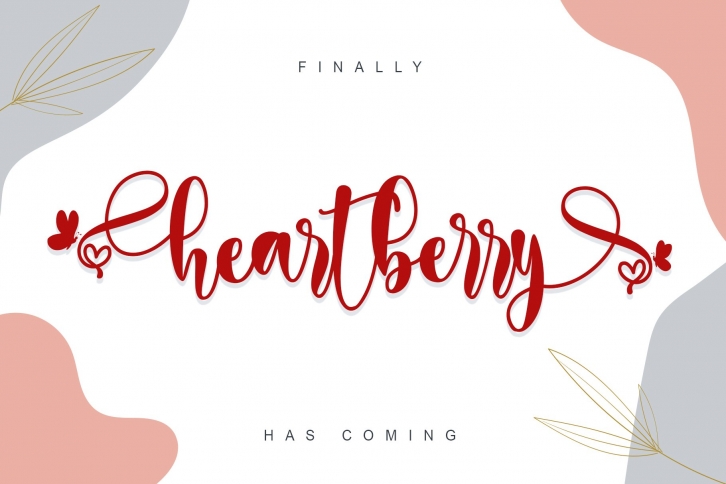
heartberry is a beautiful font that was designed by Thomas Aradea. It's a great choice for designers and creatives who need such a font. It was released on February 22, 2021 and the file size is 9.76 MB. heartberry may give a more youthful, expressive and casual look to your project. It is a very beautiful, refined, elegant, and high-quality font.